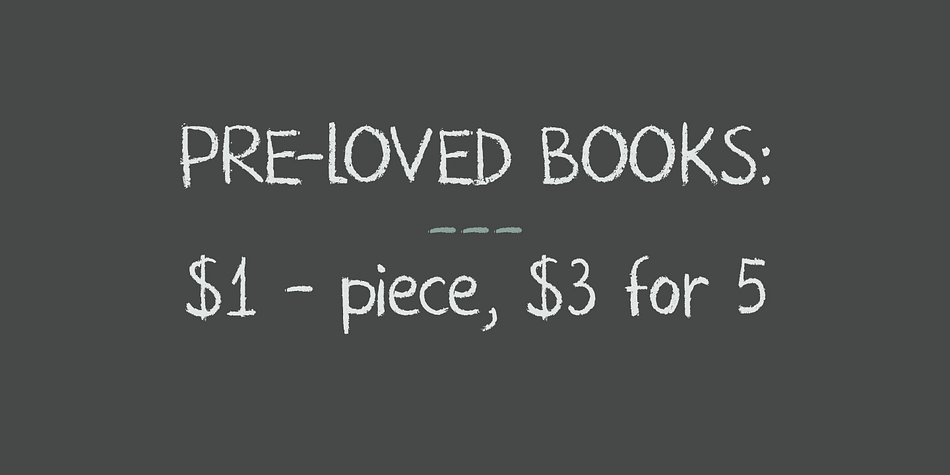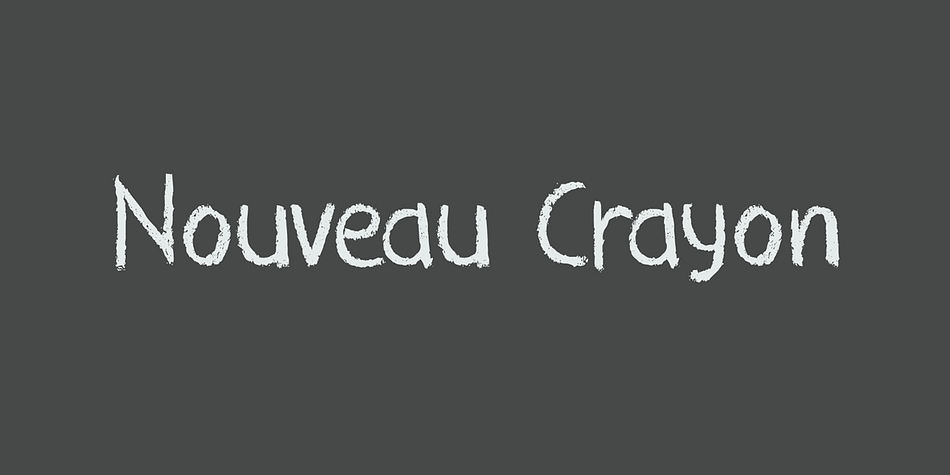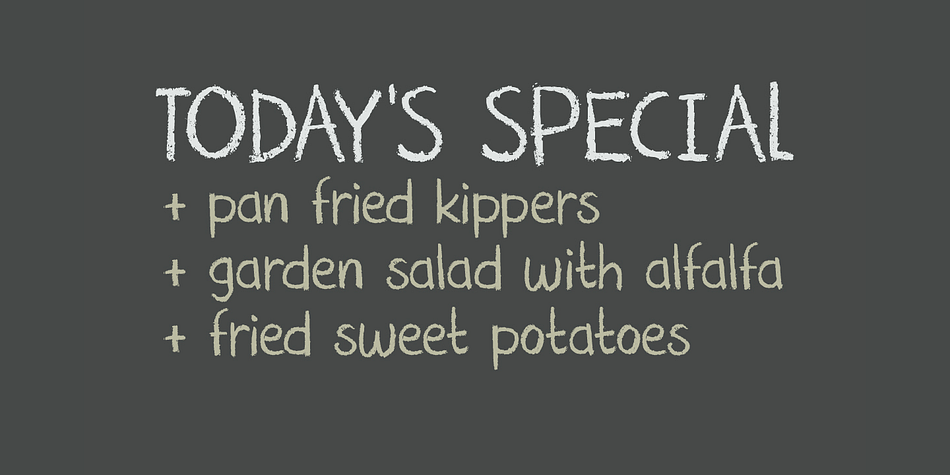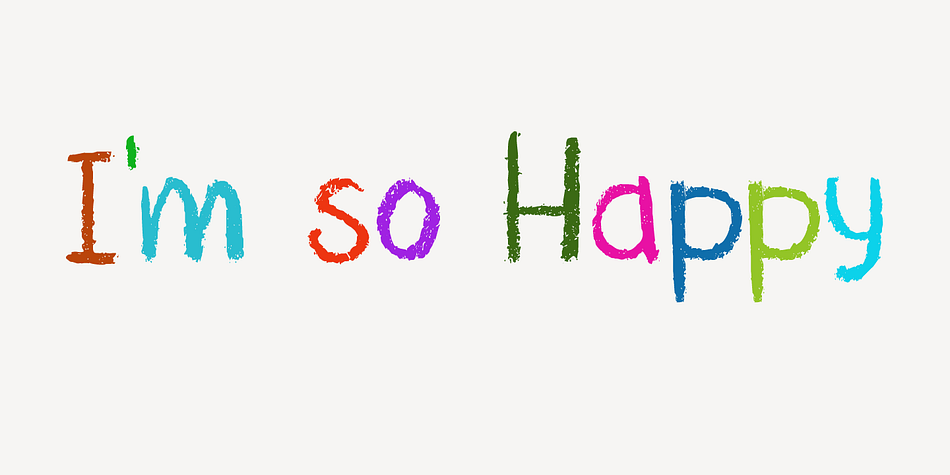
Designed by David Kerkhoff, Nouveau Crayon is a hand drawn and kids font family. This typeface has two styles and was published by Hanoded.
Nouveau Crayon is based on Crayon Crumble, a font I made a long time ago. I changed a lot of glyphs and added a whole bunch of new ones.
It has become quite a good looking font to be honest: oodles of crayon goodness, heaps of crumbling bits and a lot of expression. Use it for cafe websites, restaurant menus, children’s books, art fair posters and whatever else you fancy.
Nouveau Crayon comes with abundant language support.